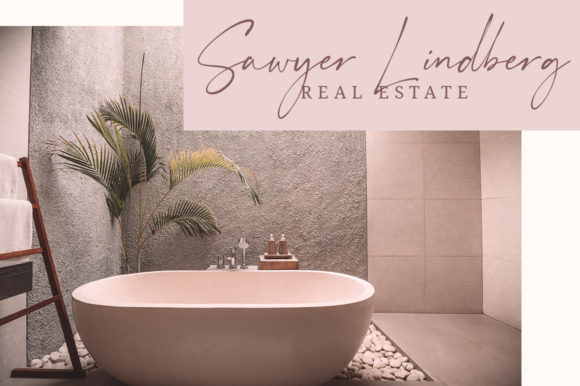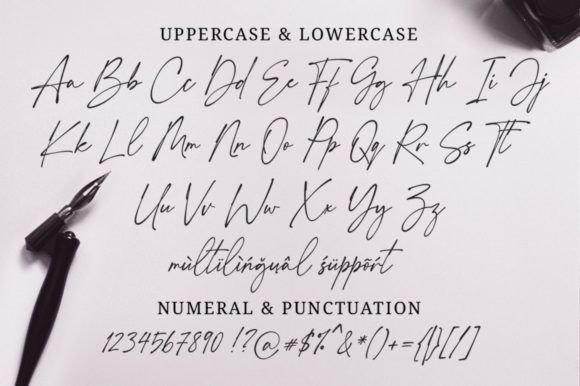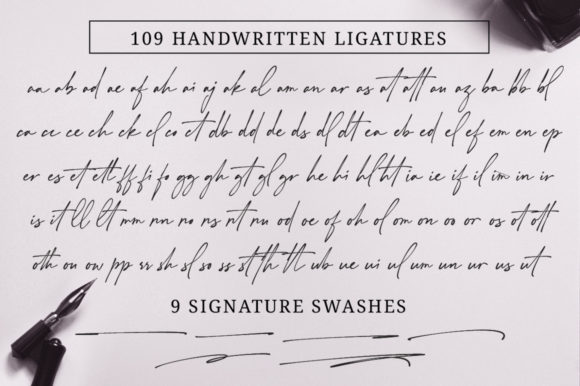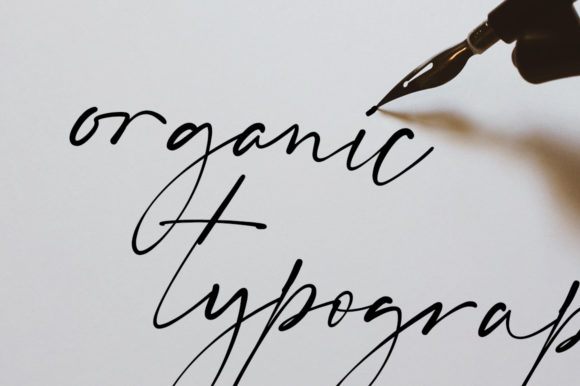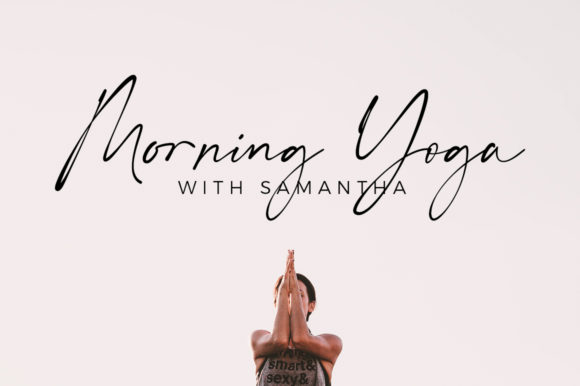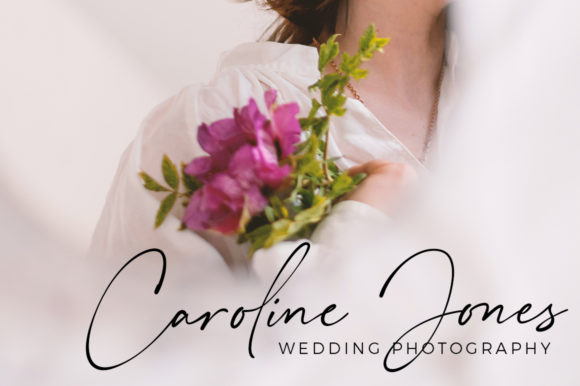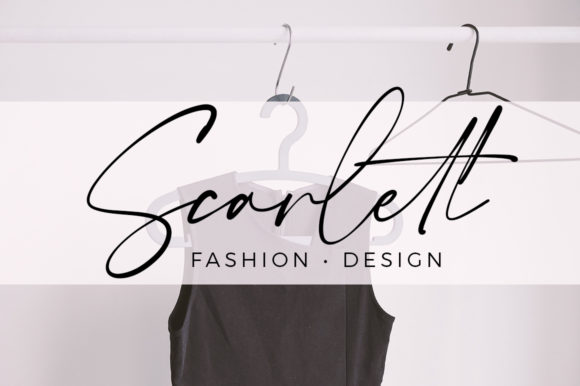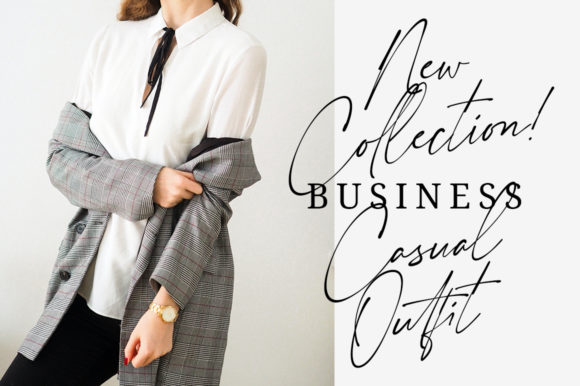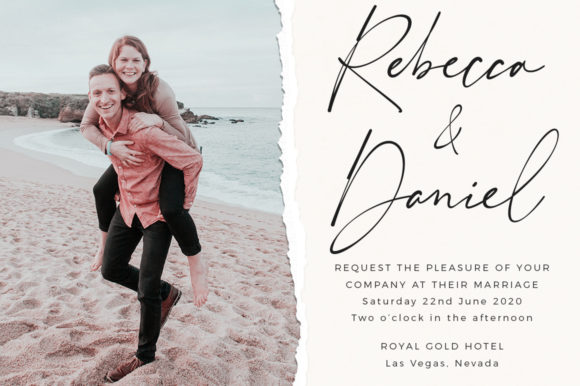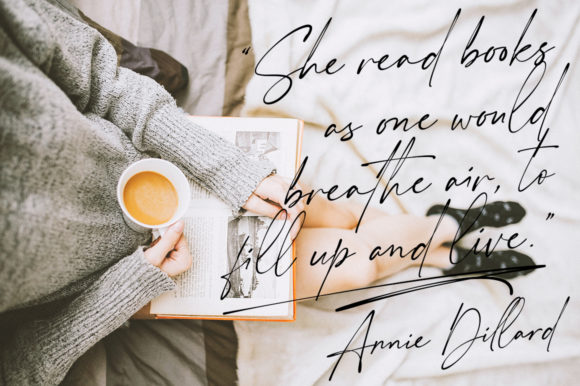
My Everything Font
About My Everything Font
My Everything is a stylish and relaxed handwritten font. It looks lovely on wedding invitations, thank you cards, quotes, greeting cards, logos, business cards and every other design which needs a handwritten touch. This font is PUA encoded which means you can access all of the glyphs and swashes with ease!